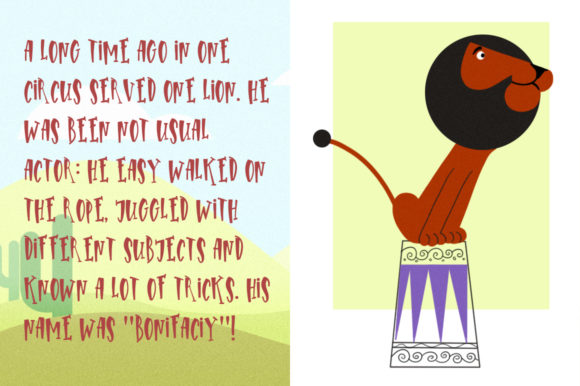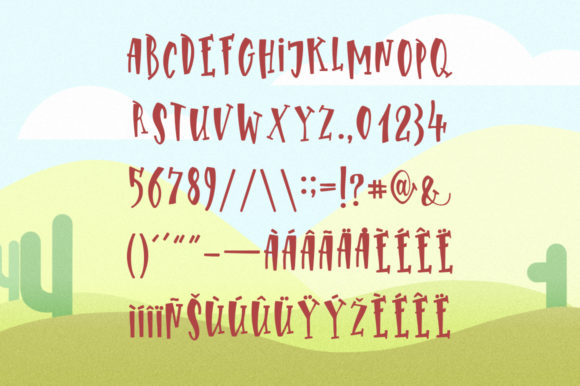
Bonifaciy
About Bonifaciy Font
Bonifaciy is a genuine and incredibly quirky display font. Whether you are using it for cartoon-related designs, children’s games, quotes, titles, brand names, book covers, posters, or just any creation that requires a touch of beauty, this font is a great choice.